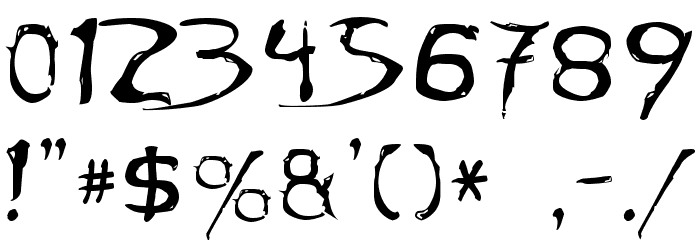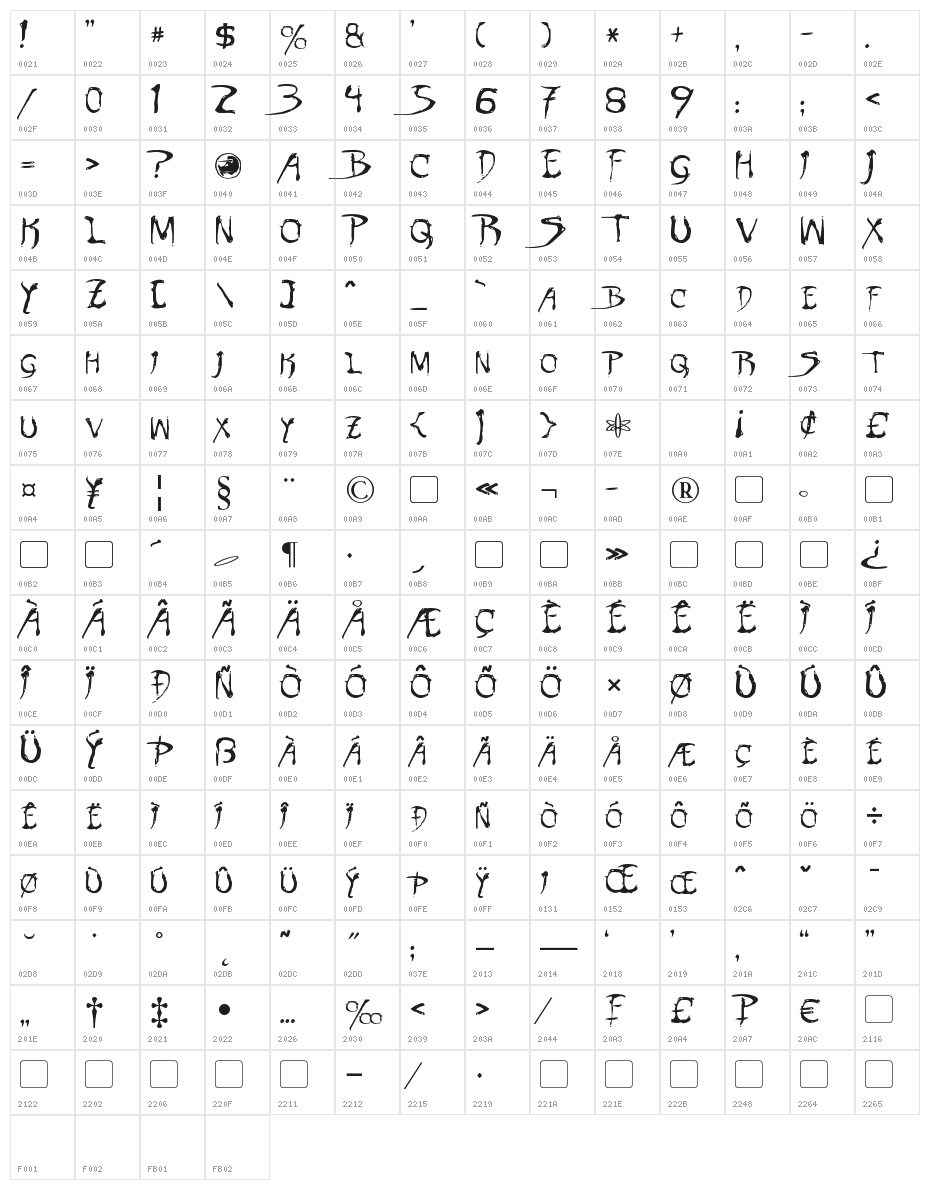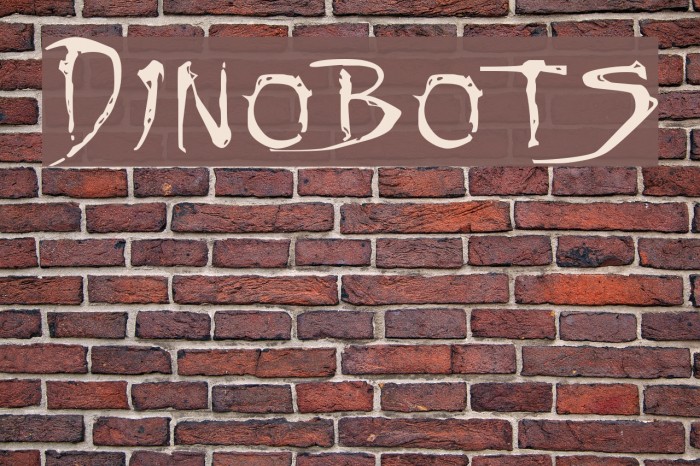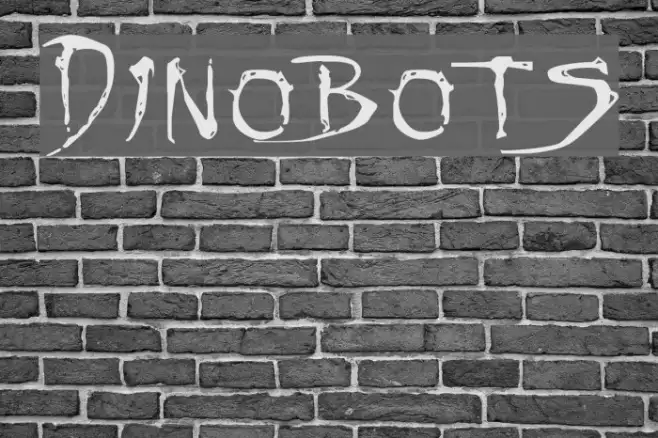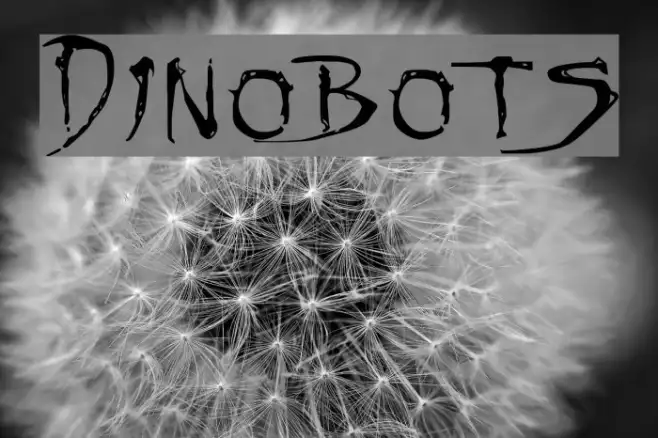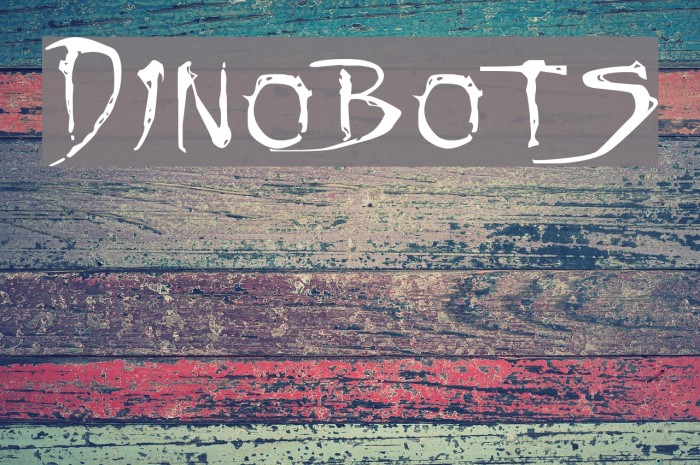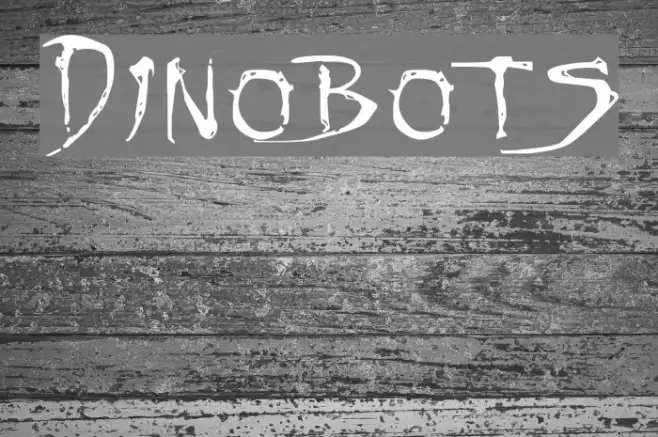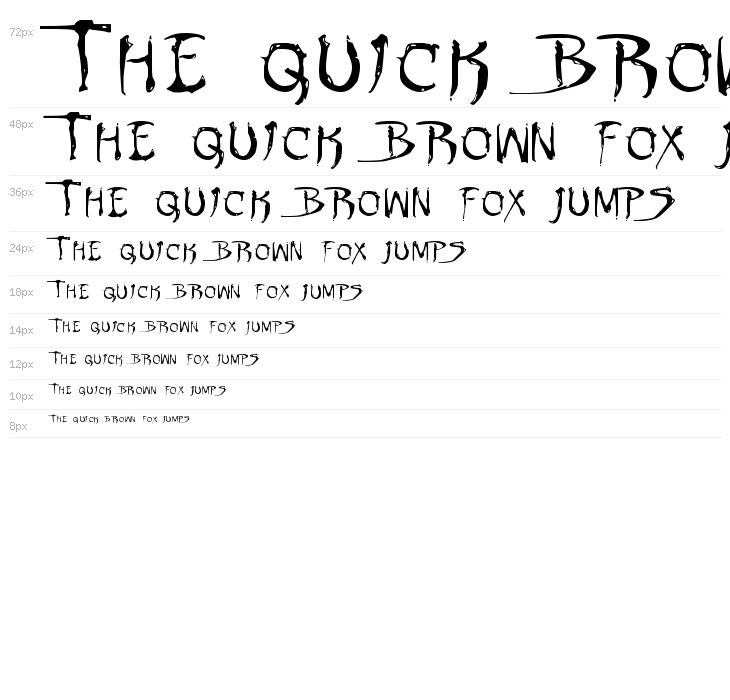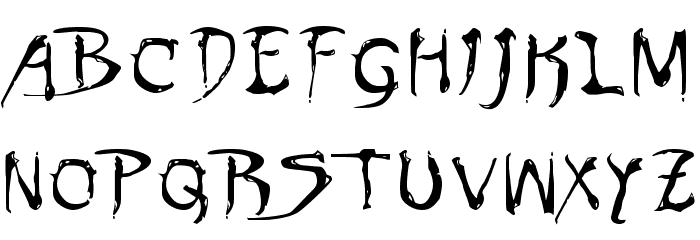
Dinobots Font
Dinobots Description
This font features a dynamic and edgy style, reminiscent of prehistoric themes with a modern twist. The characters are bold and slightly irregular, giving them a hand-drawn appearance. The strokes are thick with sharp, angular edges, and some letters have unique, elongated serifs that add to the dramatic effect. The numbers and special characters maintain this rugged aesthetic, making the font suitable for attention-grabbing designs. Its distinctive look is ideal for projects that require a strong, impactful visual presence.
| Proposed Projects | Ideal for movie posters, video game titles, themed event invitations, and branding for adventure or dinosaur-related content. |